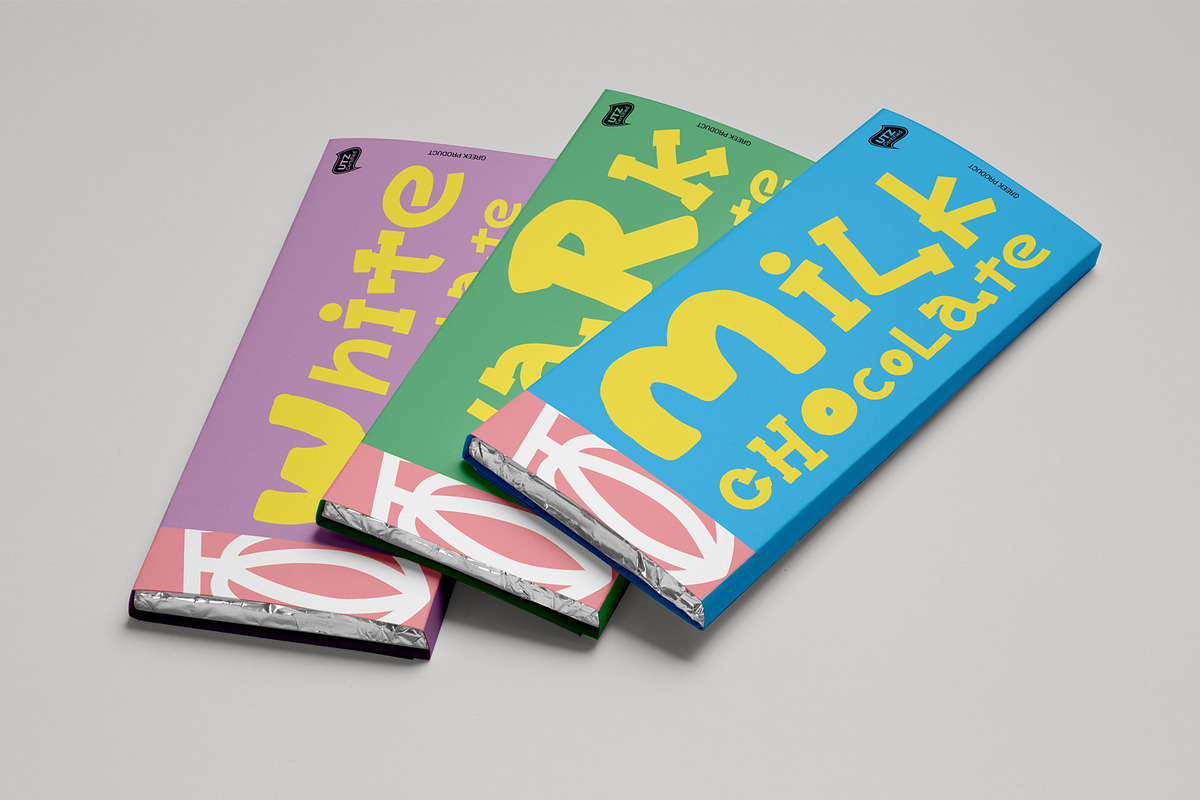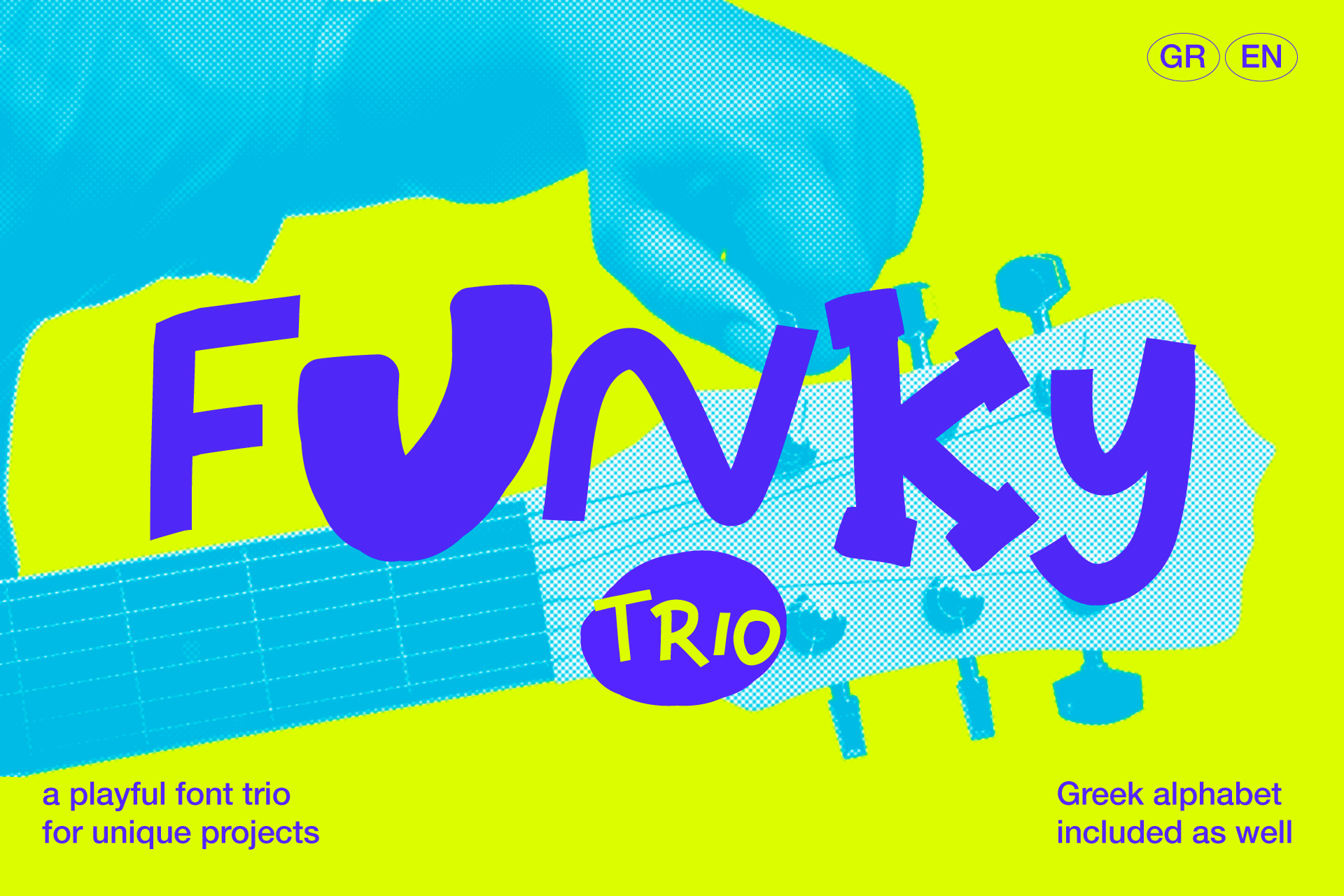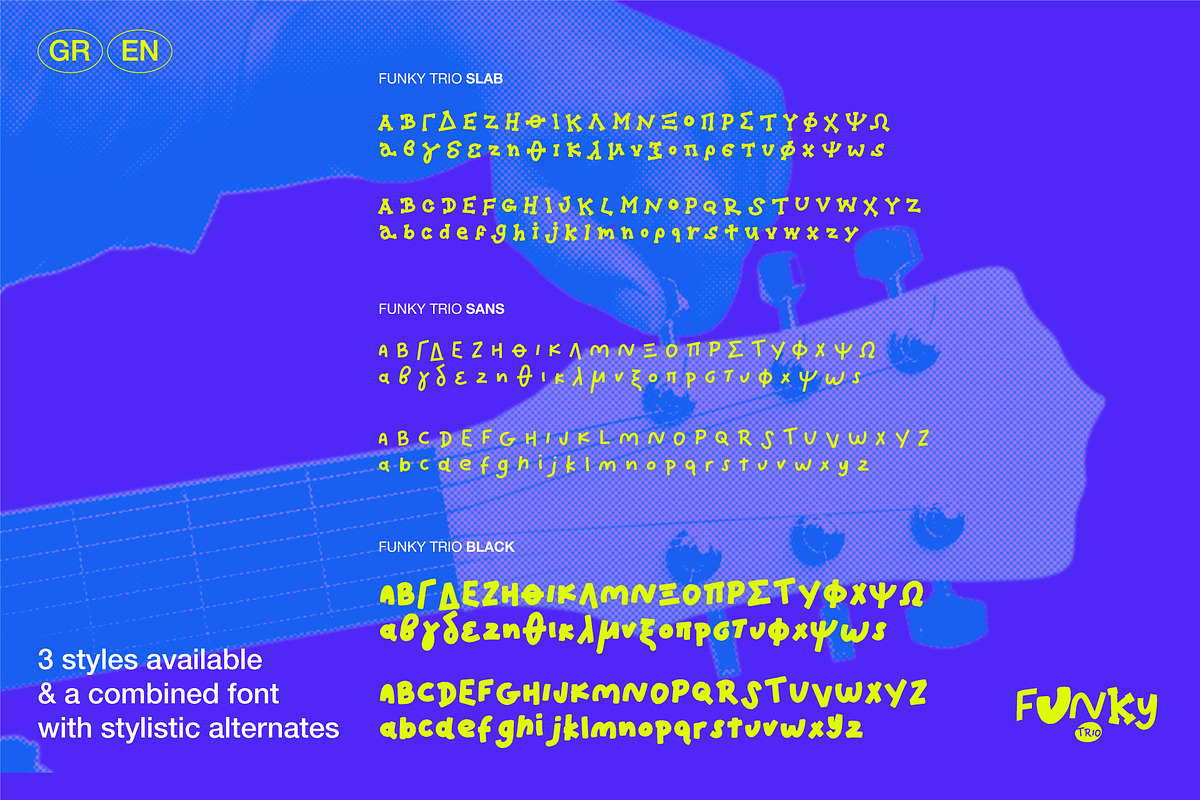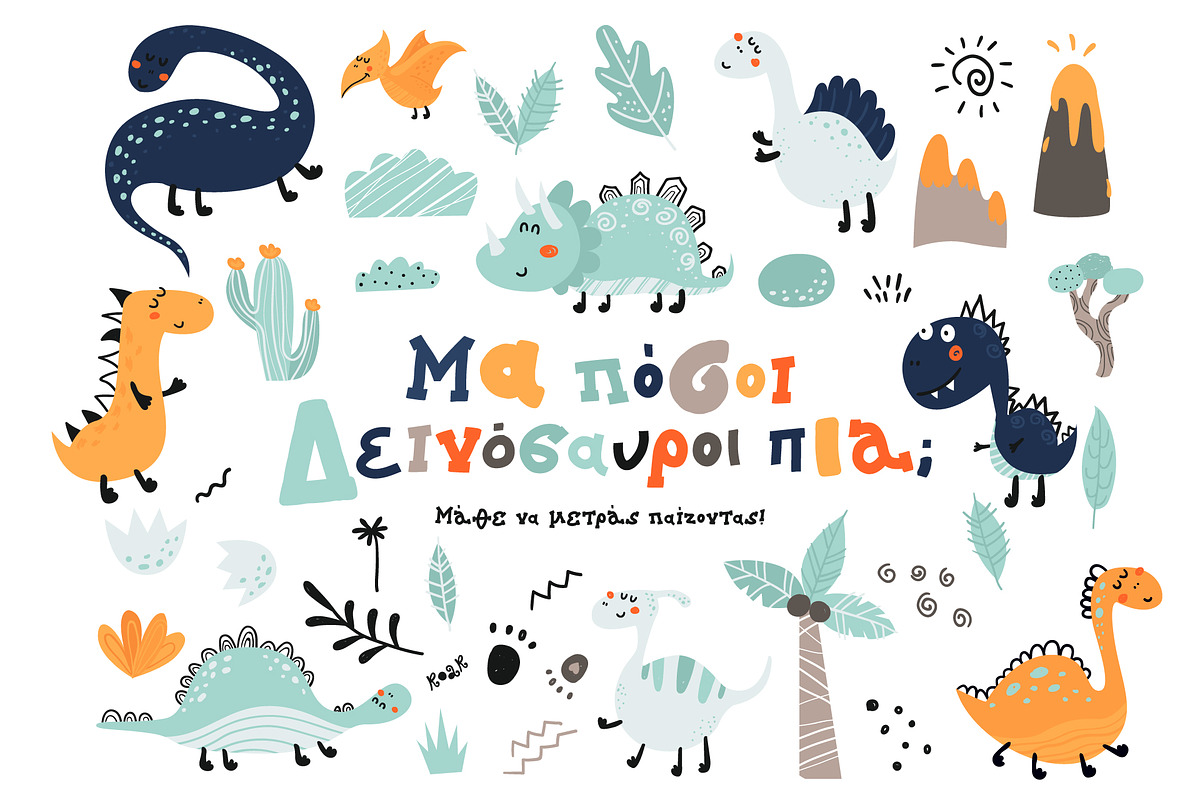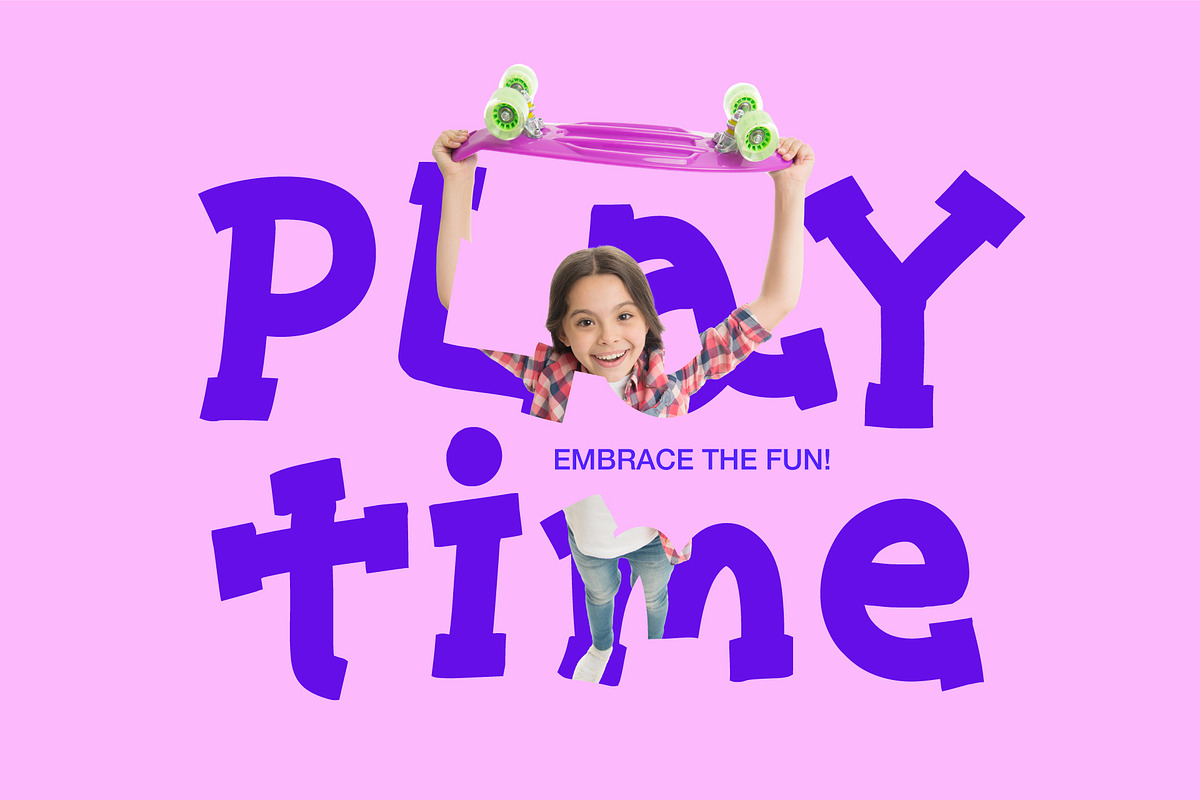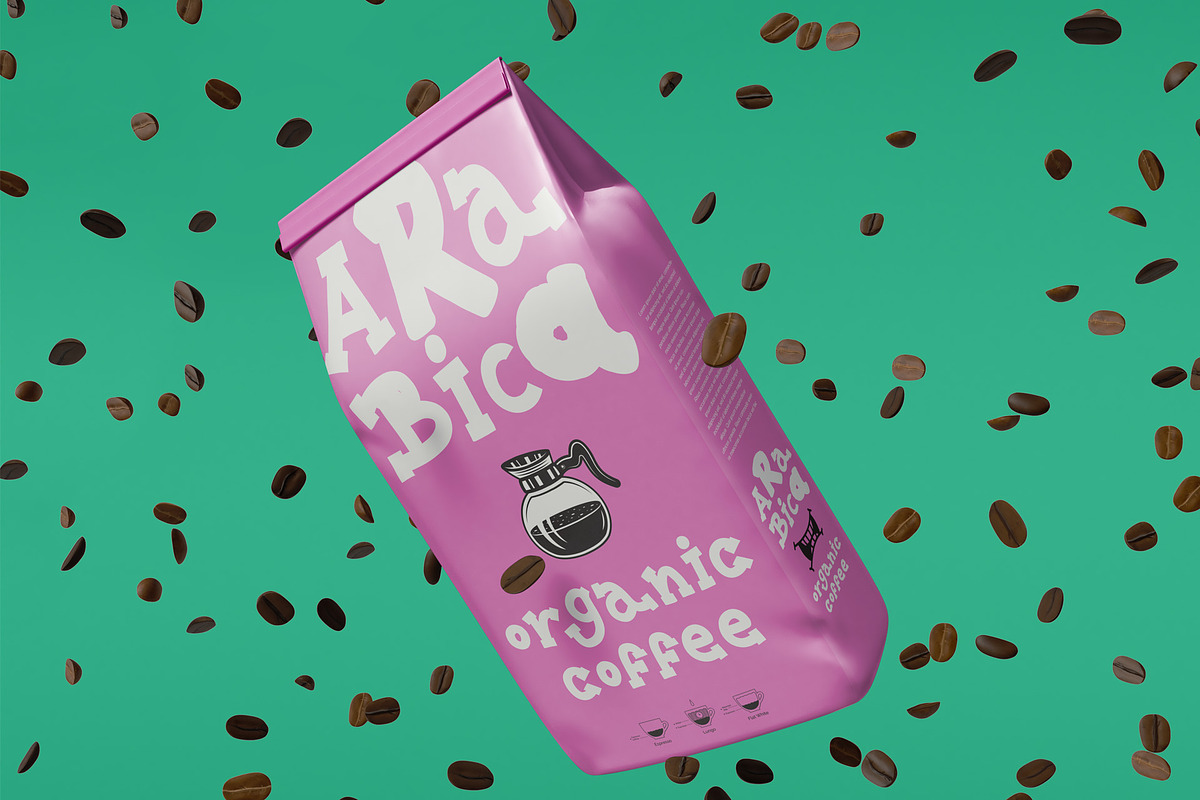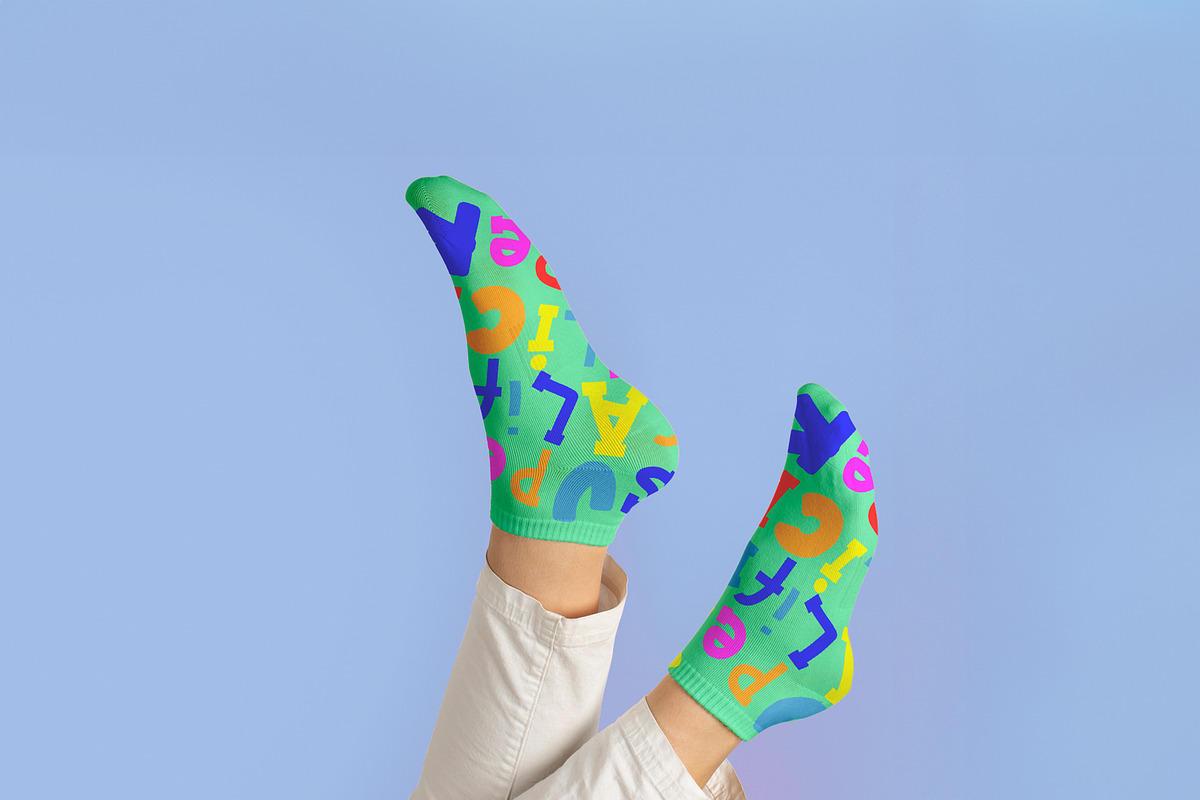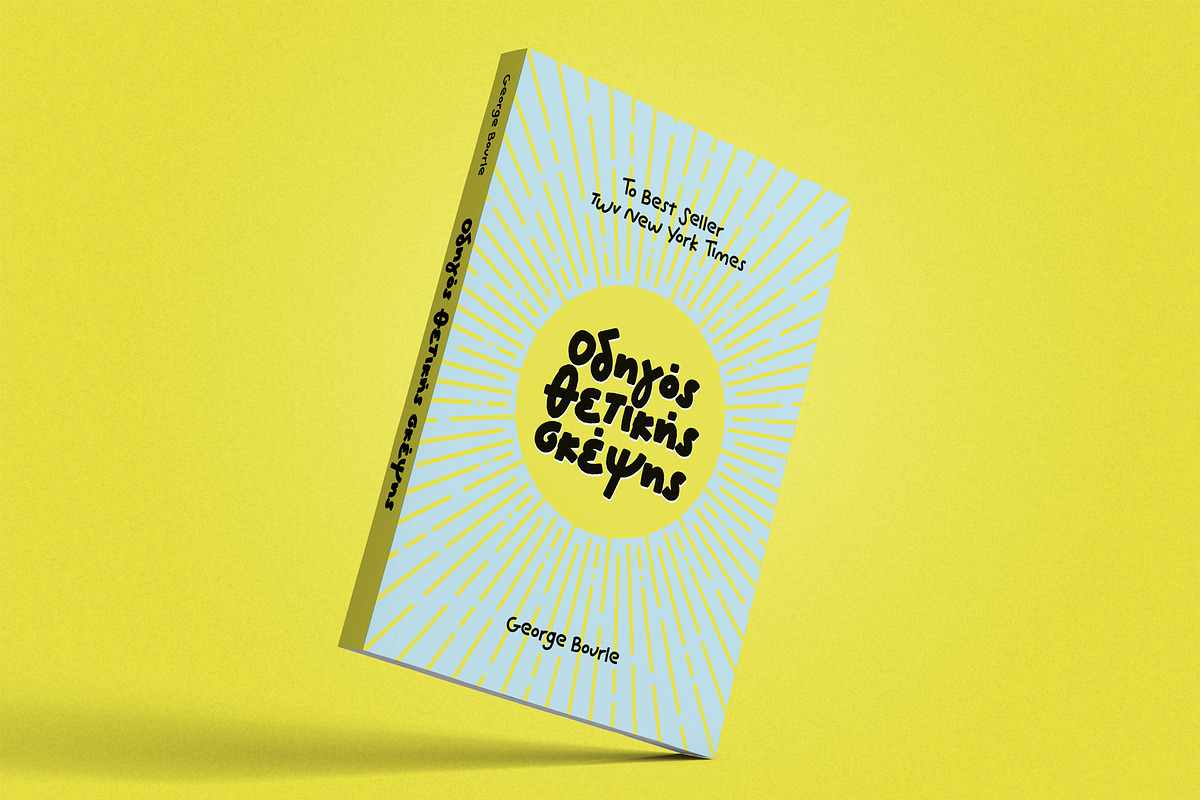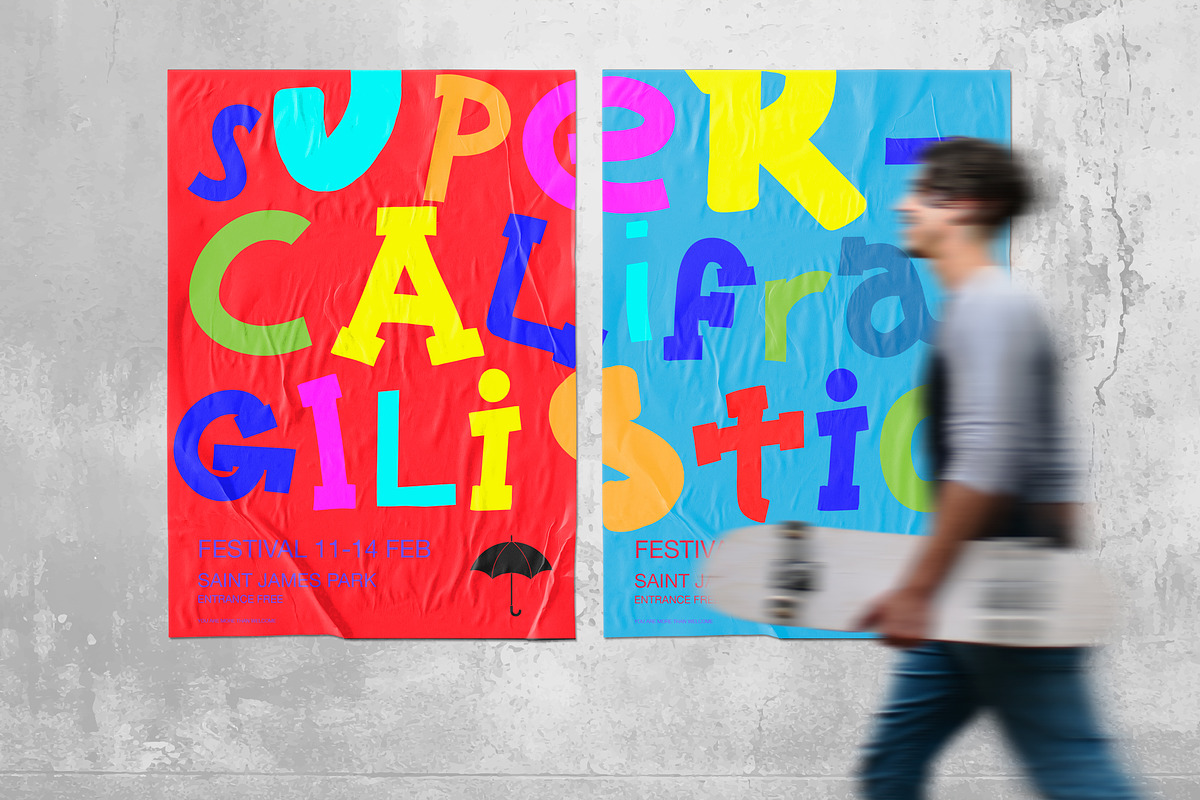
Funky Trio font
Introducing Funky Trio, a vibrant and playful hand-drawn font collection that adds a burst of energy to your designs! With three distinct styles to choose from, Funky Trio offers versatility and creativity in one package. Whether you’re aiming for a retro vibe, a funky feel, or a whimsical touch, this trio has you covered.
Each font in Funky Trio brings its own unique flair to the table. From bold and expressive to quirky and charming, there’s a style to suit every project. Plus, with an extra font featuring all the variations as alternates, you’ll have even more options to play with.
And for our Greek-speaking creatives, we’ve ensured that Funky Trio is available in Greek, allowing you to seamlessly incorporate this lively font into your designs.
So, whether you’re crafting posters, invitations, branding materials, or social media graphics, let Funky Trio be your go-to font for adding personality and charm.